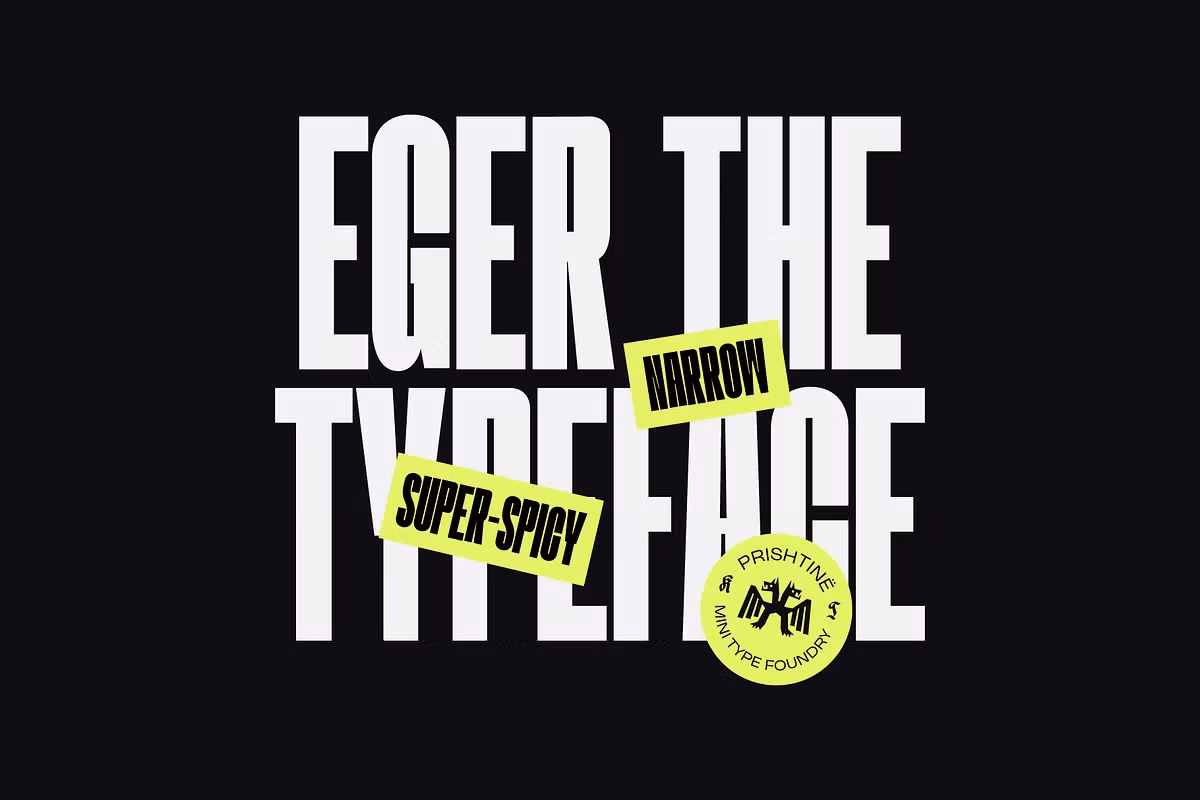
Eger 1.0 – Display Type Font Free Download is a bold, modern display typeface built to command attention with striking shapes and a clean, geometric aesthetic. Please note: you must purchase this font for commercial use, but you can test it through a free download. Perfect for headlines, posters, logos, and cutting-edge branding, Eger 1.0 is made for designers who want to make a statement.
Its strong letterforms and futuristic vibe make it ideal for tech, fashion, or editorial projects where boldness meets clarity. Whether you're crafting a product label or a digital interface, Eger 1.0 – Display Type Font Free Download offers both visual impact and design flexibility. Fully compatible with Adobe Illustrator, Photoshop, Canva, and other platforms. Download it today for personal use and give your work a sleek, confident presence with the powerful lines of Eger 1.0.